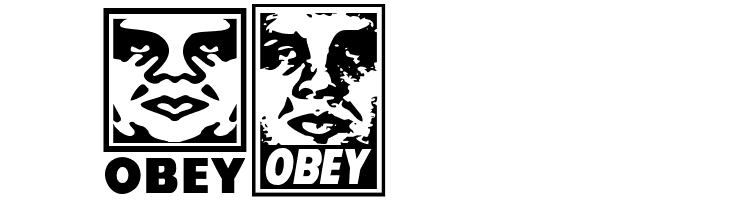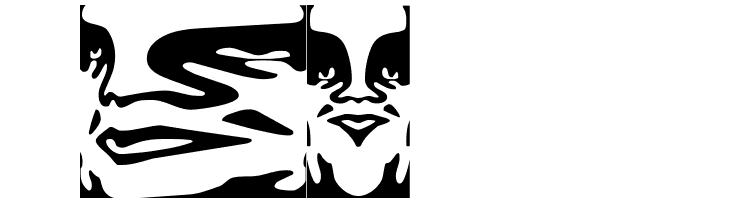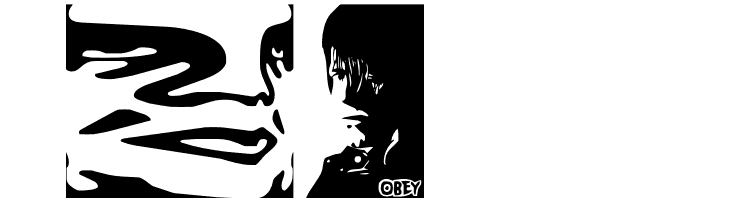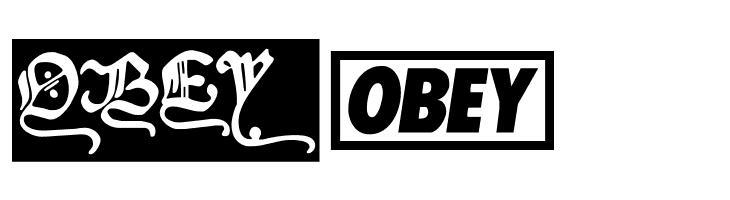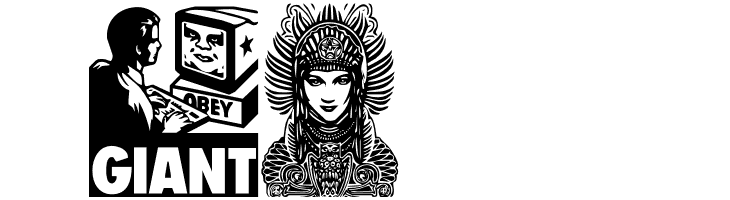
A display font made up of bold, graphic street art illustrations.
A display font using graphic illustrations for each character.
Decorative, graphic-heavy font with unique artwork for each character.
A bold, artistic font with intricate, abstract designs and embedded faces.
A bold, decorative font with intricate patterns and abstract shapes.
Bold, graphic display font inspired by street art and propaganda.
An artistic, image-based decorative font with each character as a distinct illustration.
A diverse collection of bold, impactful fonts with unique styles.
A bold, geometric font with a strong, authoritative presence.